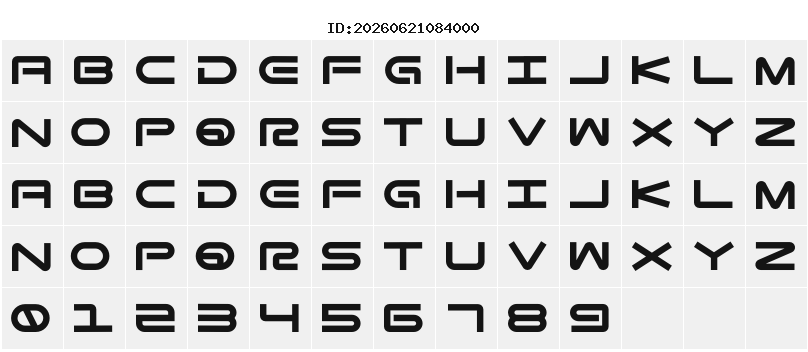
• Font Name: Zero G Regular
• Full Font Name: Zero G Regular
• Designer: Aromal Ashok
About Zero G Regular.otf
Zero G Regular.otf is a modern, elegant sans-serif font designed for ultimate readability and visual harmony. Perfect for branding, headlines, web design, and print materials.